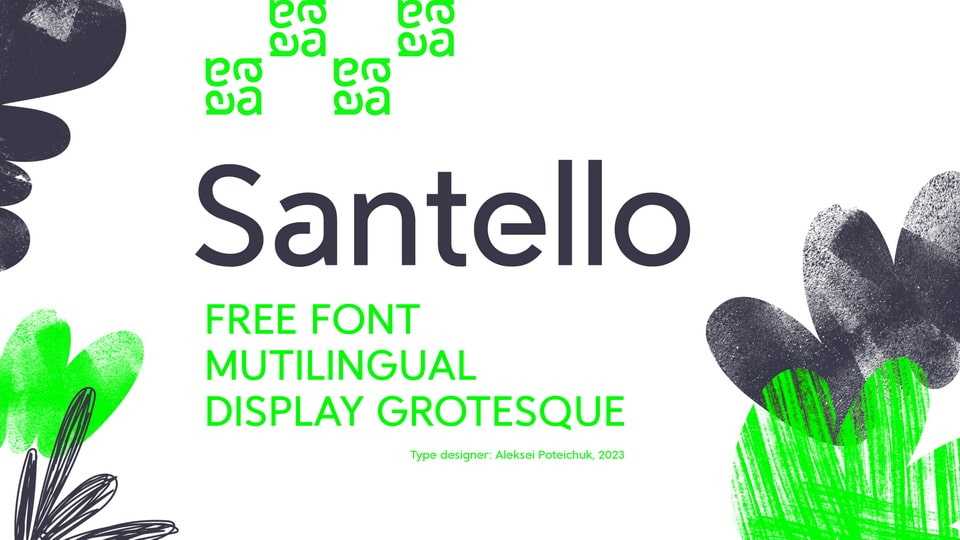
Download Santello font, a geometric sans serif typeface based on classic Futura with some chips from modern humanistic grotesque. Supports more than 30 languages, including pure Cyrillic.
Designer: Aleksei Poteichuk